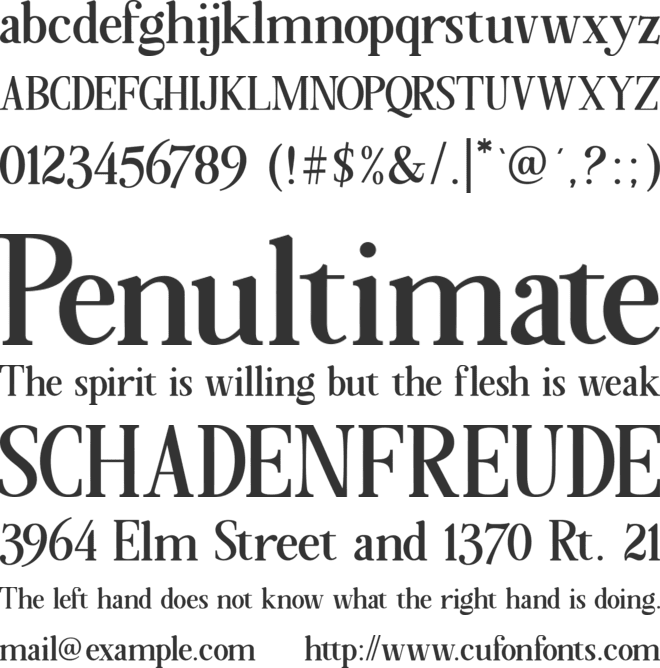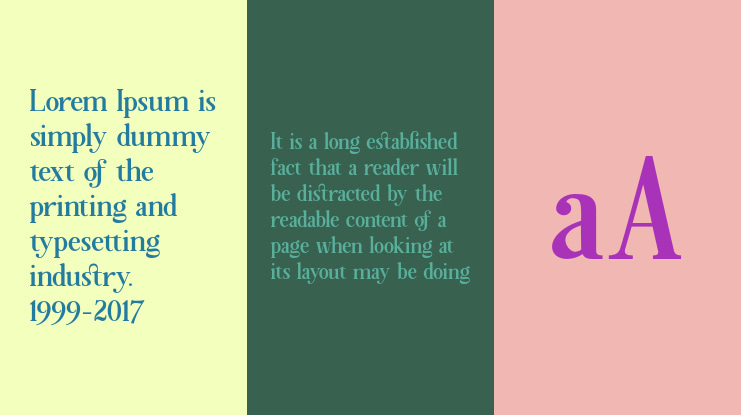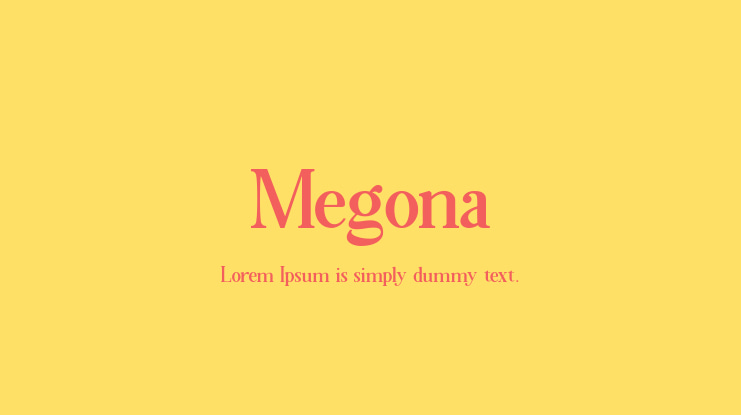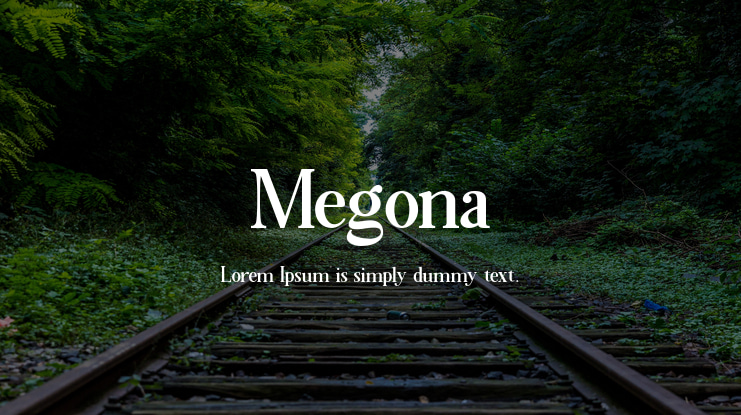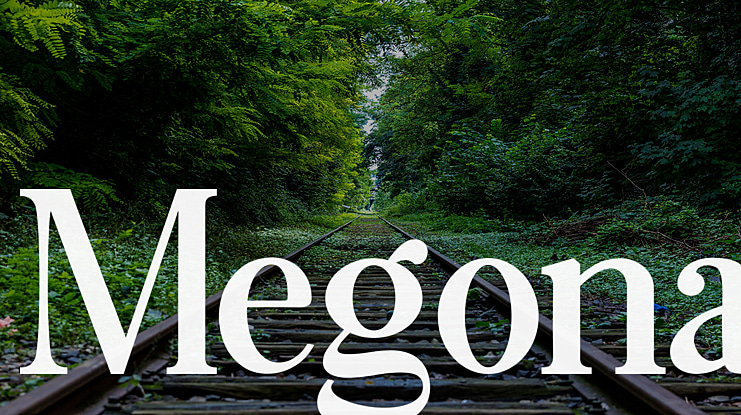
Megona Font Family
Megona Font is an elegant, unique, fashionable, luxurious, modern and elegant font with lots of ties and alternatives that will make your presentations even more amazing and stand out!